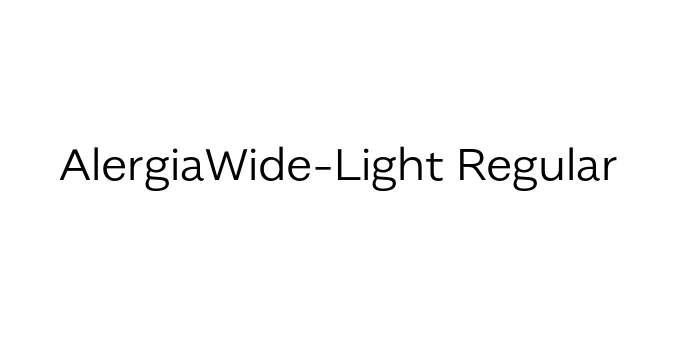
AlergiaWide-Light Regular
Designed by Mateusz Machalski
Alergia Wide-Light Regular is a sophisticated sans-serif typeface designed by the renowned Polish typographer Mateusz Machalski. Part of the broader Alergia superfamily, this specific variant focuses on expanded horizontal proportions and refined stroke weights. The design bridges the gap between traditional grotesque structures and contemporary geometric aesthetics, resulting in a typeface that feels both authoritative and remarkably fresh in modern layouts.
The development of the Alergia family was driven by a need for versatility across various media. The Light Regular weight in the Wide width is particularly effective for creating an airy, luxurious feel in editorial design and high-end branding. Its generous letter-spacing and clean terminals ensure that it maintains excellent legibility, making it a favorite for designers who require a minimalist yet impactful typographic voice for digital and print projects.
AlergiaWide-Light Regular Best Uses
Perfect for spacious, elegant magazine headers and body text in fashion or art publications.
Ideal for minimalist logos and corporate identities that require a sense of openness.
Excellent for hero sections and landing pages where a premium, modern look is desired.
Effective for high-contrast ad copy that needs to look sophisticated and readable.